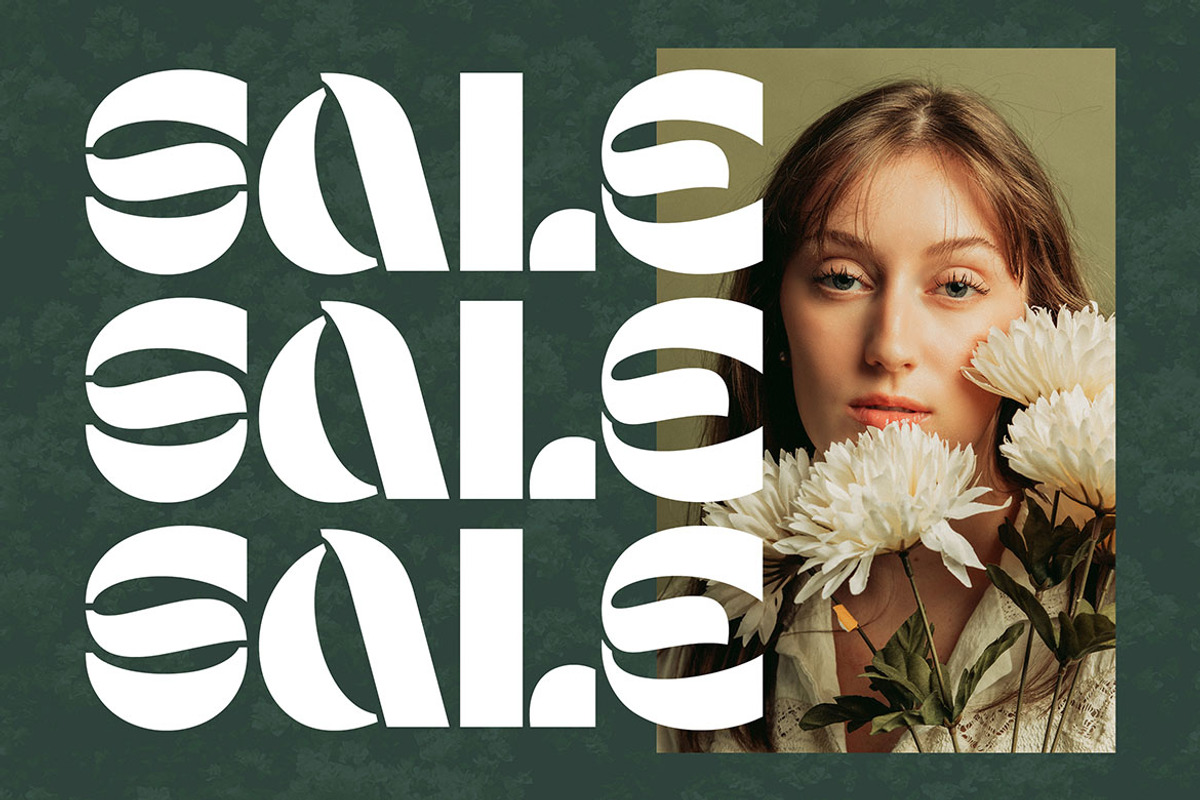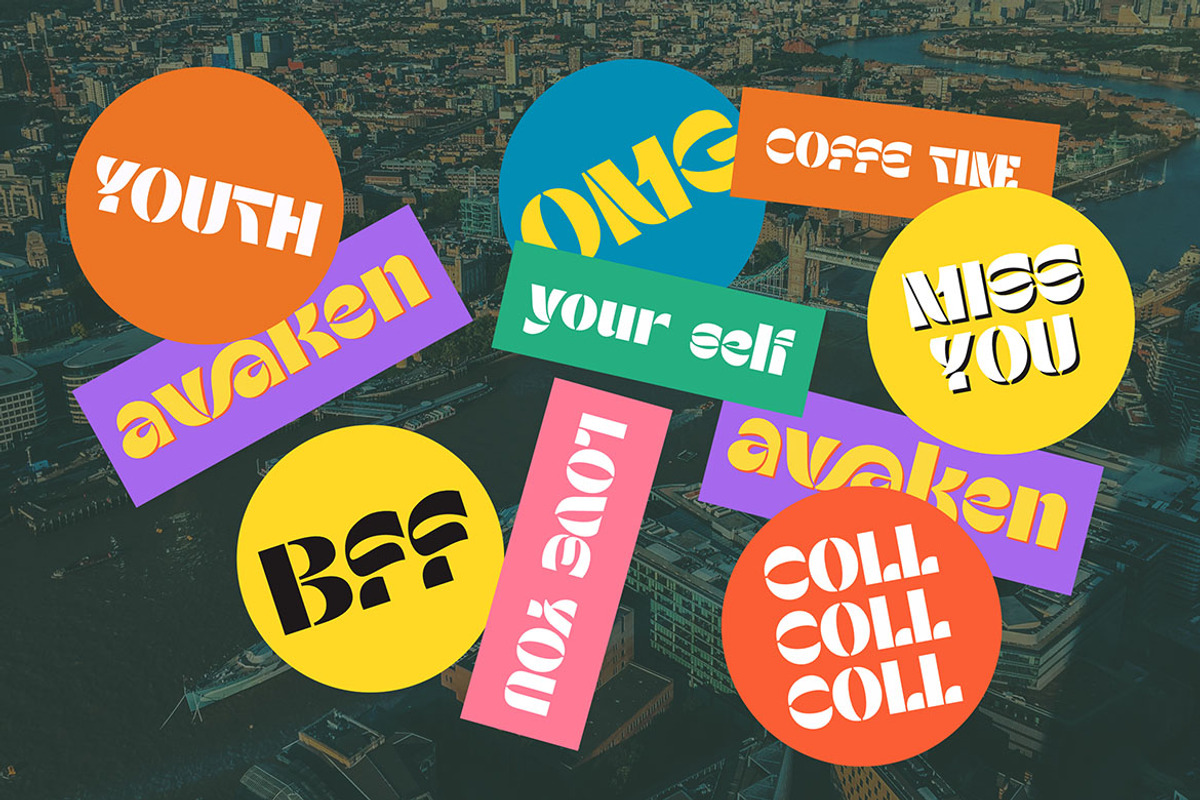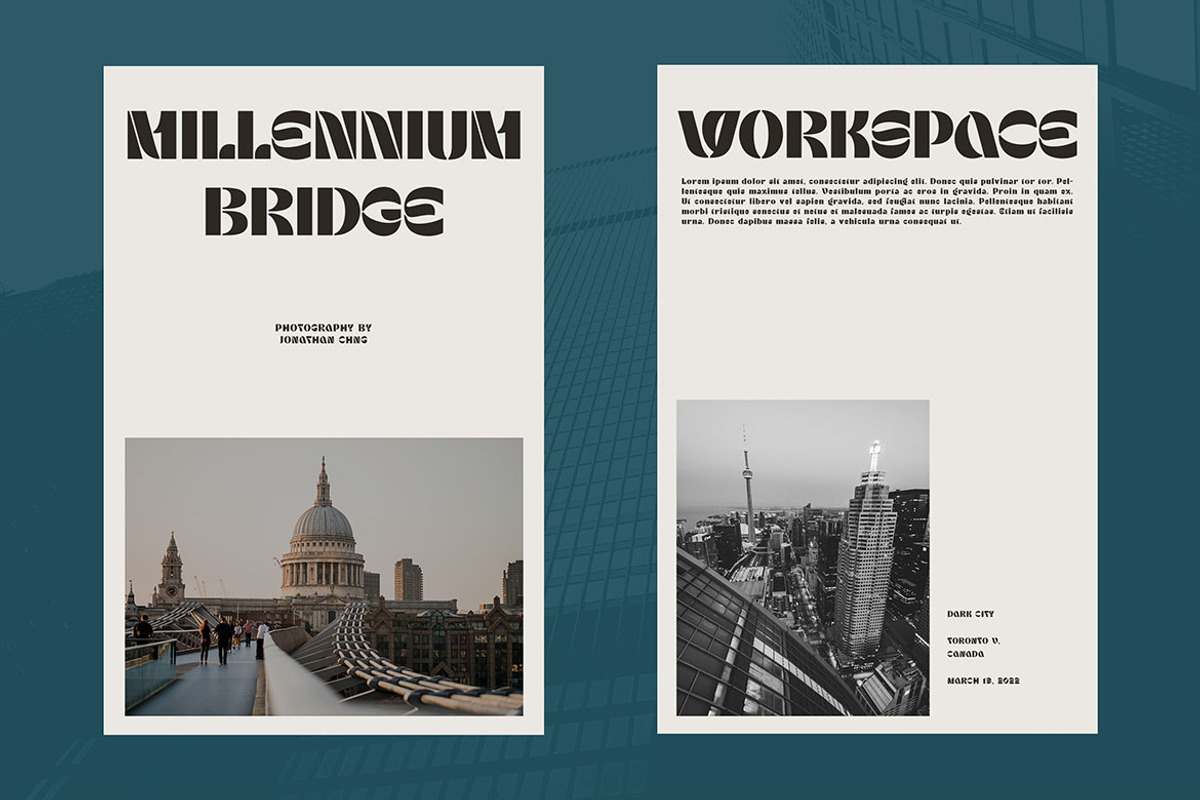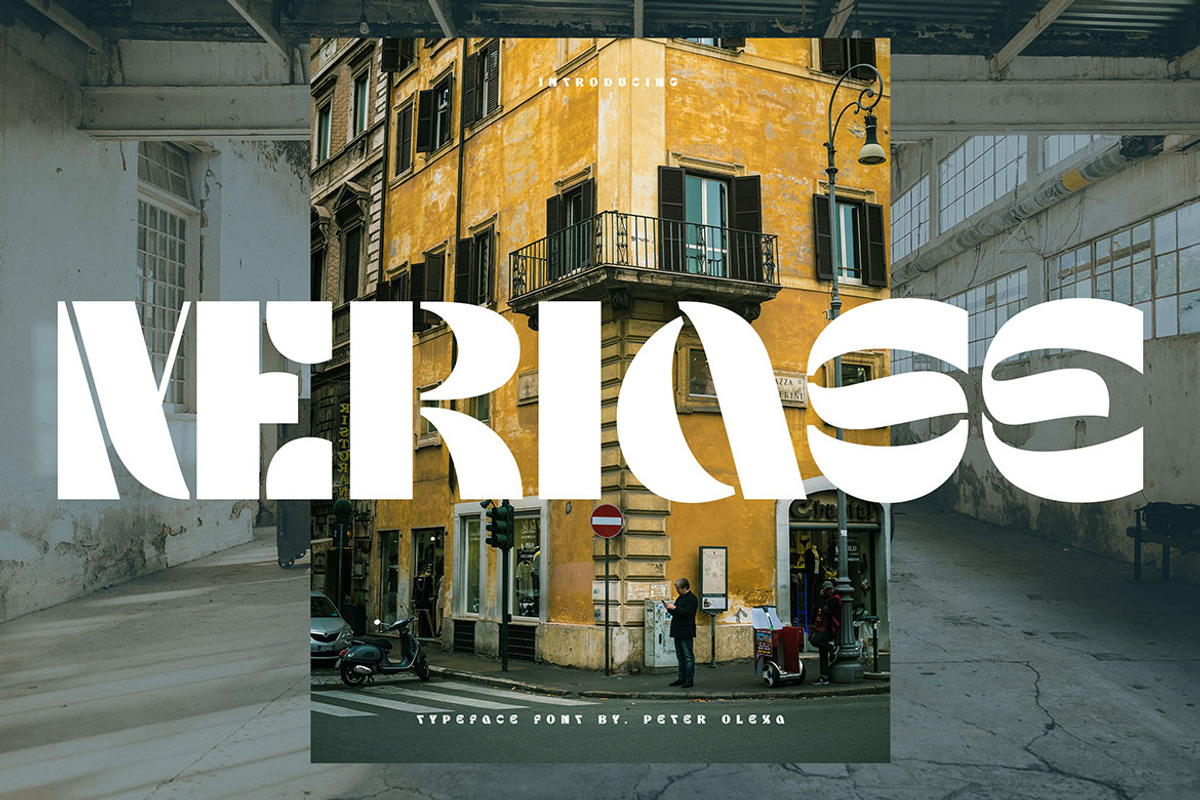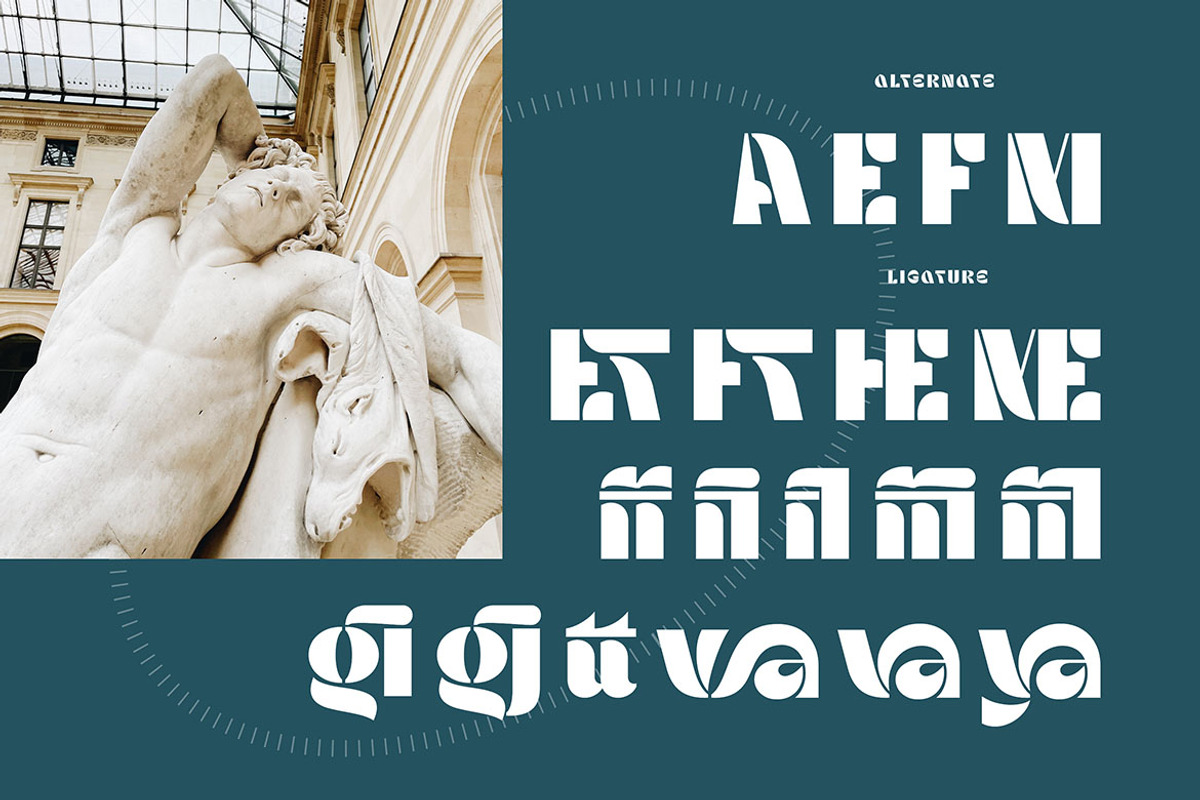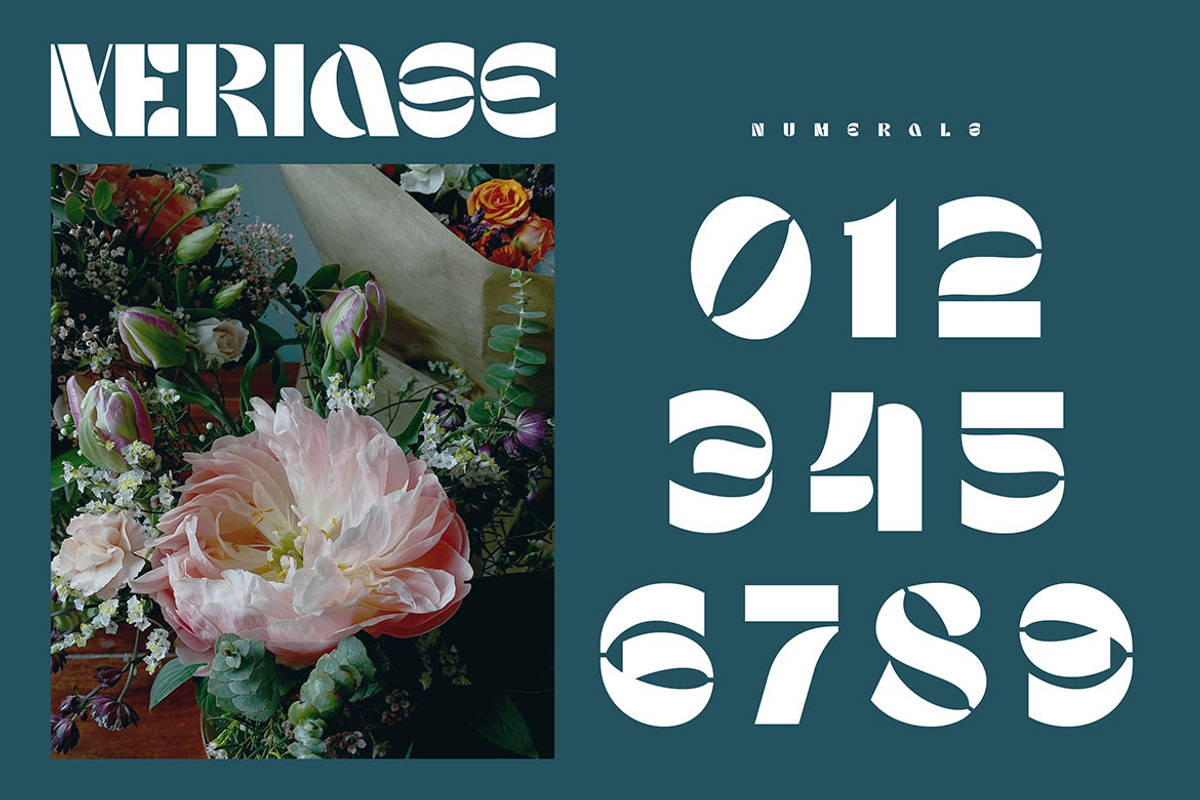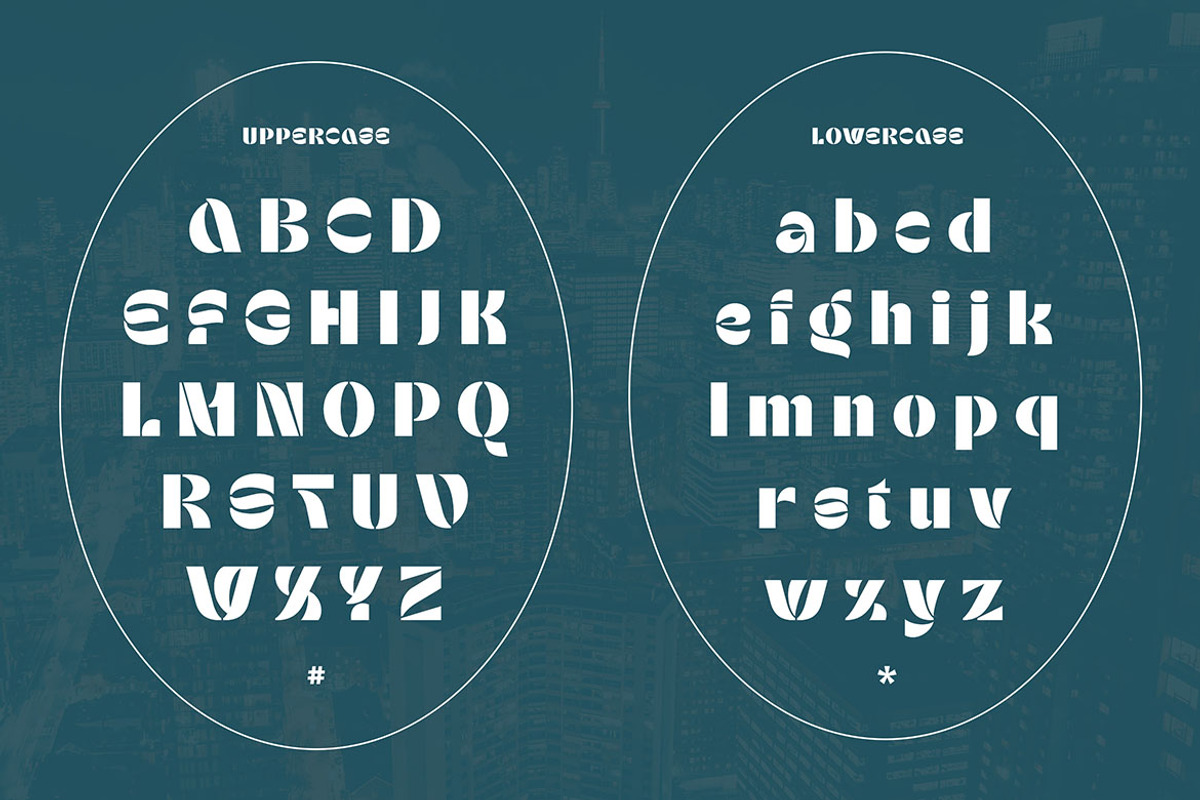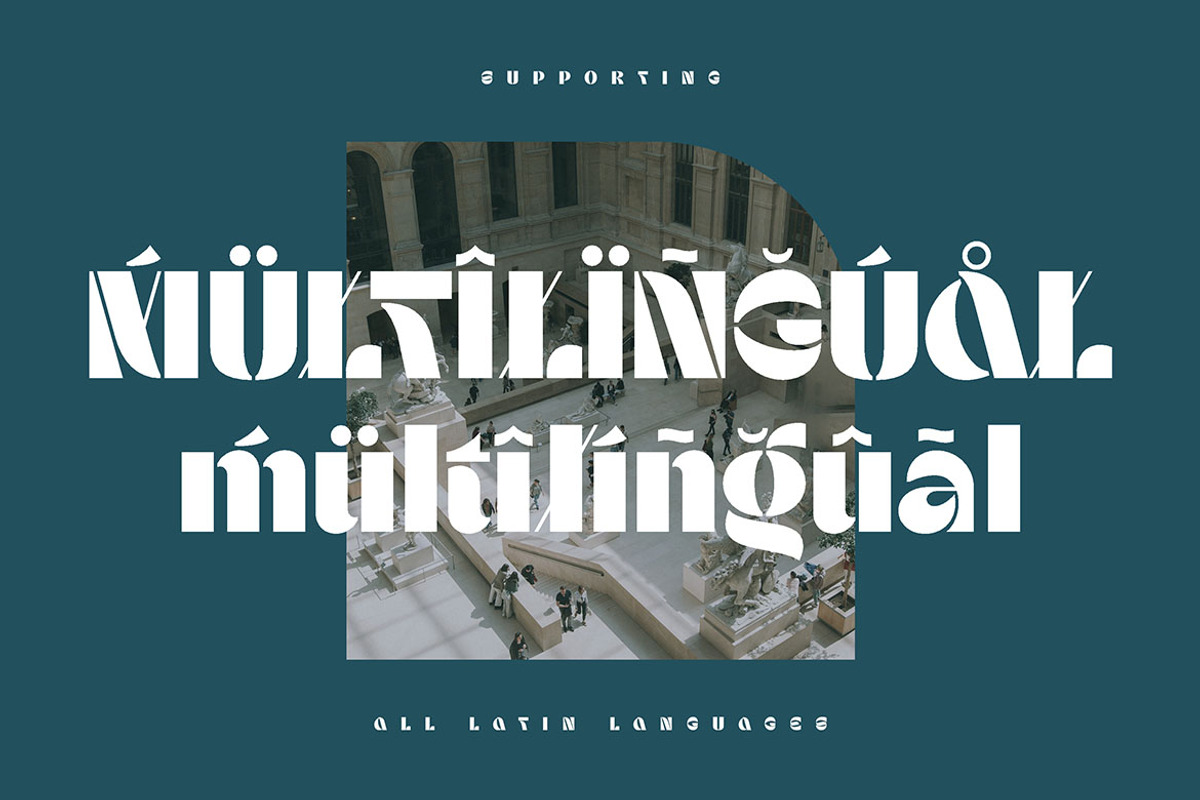
Meriase Bold Display Font
Trendy, bold, unique, artistic & modern style sans font for your fancy projects. Futuristic, fashion and sharp style on Meriase font will be great for any branding project. Some alternates and ligatures will help you to create unique and original logo design or website header! Enjoy :)
- Alternate characters
- Great for modern branding projects!